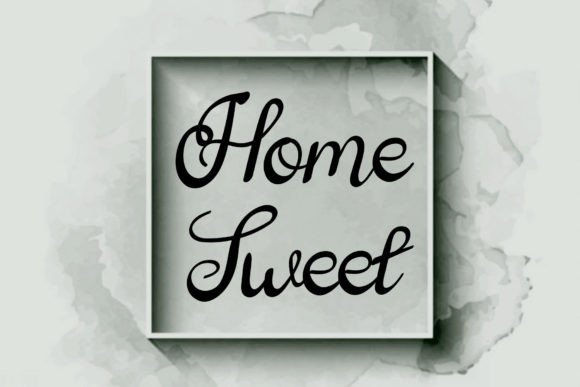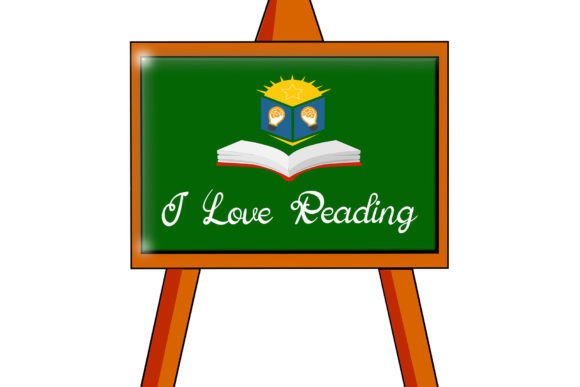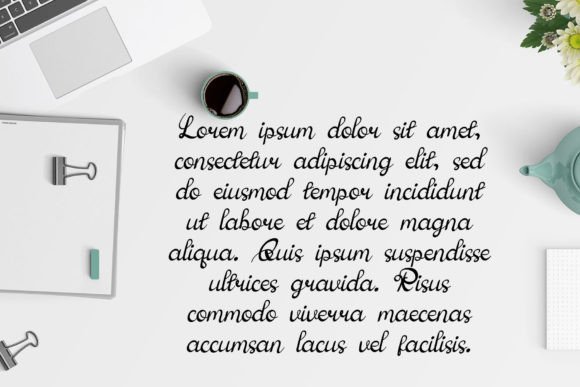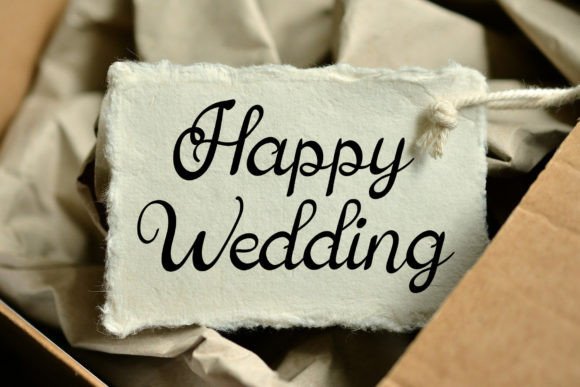
Right Font
A Unique and Elegant Handwritten Font
Right Font is a unique and elegant handwritten typeface crafted with a professional hand touch. Its graceful strokes and distinctive design make it perfect for a wide range of creative projects. Whether you’re designing greeting cards, wedding invitations, birthday cards, or event stationery, this font brings a personalized and timeless charm to your designs. The Right Font adds an element of sophistication and creativity that will make your projects stand out.
Perfect for Greeting Cards and Invitations
For greeting cards and invitations, the Right Font is an excellent choice. Whether you’re designing birthday invitations, holiday greetings, or wedding invitations, this font adds a romantic, elegant touch to your designs. Its handwritten style gives your invitations a personalized and charming appeal, setting the tone for your special event. The Right Font ensures that your invitations make a lasting impression and feel both unique and timeless.
Ideal for School Assignments and Academic Projects
The Right Font is also suitable for school assignments and academic projects. Whether you’re working on project covers, reports, or presentations, this font adds a professional, yet creative touch to your academic work. Its clear strokes and well-defined lines ensure that your text is legible and easily readable, making it a great choice for any educational or professional materials. Use it to bring elegance and refinement to your assignments and presentations.
Great for Birthdays and Party Events
For birthday and party invitations, the Right Font is a fantastic option. Whether you’re celebrating a milestone birthday, graduation, or any party event, this font adds a playful and charming touch to your event materials. Its handwritten nature ensures that your invitations and event designs feel personalized and welcoming, perfect for creating an atmosphere of joy and celebration. Use it to design invitations that reflect your party’s creative spirit and unique theme.
Ideal for Logos and Business Cards
For logos and business cards, the Right Font brings a refined handwritten touch to your business identity. Whether you’re designing a personal brand, small business logo, or corporate card, this font helps create a memorable and professional look. Its elegant design ensures your business materials stand out with charm and sophistication, making it perfect for any industry looking to establish a creative and personalized identity.
Versatile and Legible
Despite its elegant handwritten style, the Right Font is legible and easy to use. Its smooth lines and well-spaced letterforms ensure that your text is clear and readable, even when used for longer passages or smaller sizes. Whether you’re using it for headlines, captions, or body text, this font strikes the perfect balance of creativity and readability, making it suitable for a wide range of design applications from print to digital media.
Add Elegance and Charm to Your Designs with Right Font
If you’re looking for a unique, elegant handwritten font to enhance your designs, the Right Font is the perfect choice. Whether you’re working on greeting cards, wedding invitations, logos, or academic assignments, this font brings a timeless and personalized touch to your work. Let the Right Font help you create memorable, creative designs that leave a lasting impression.